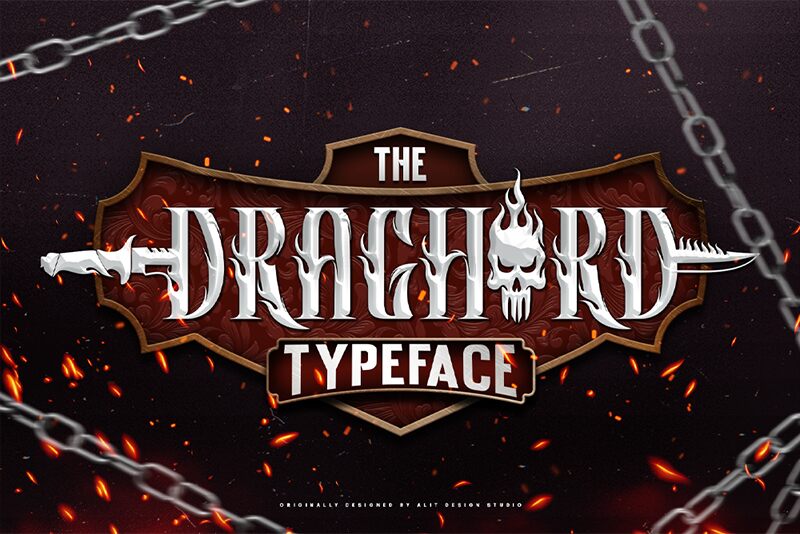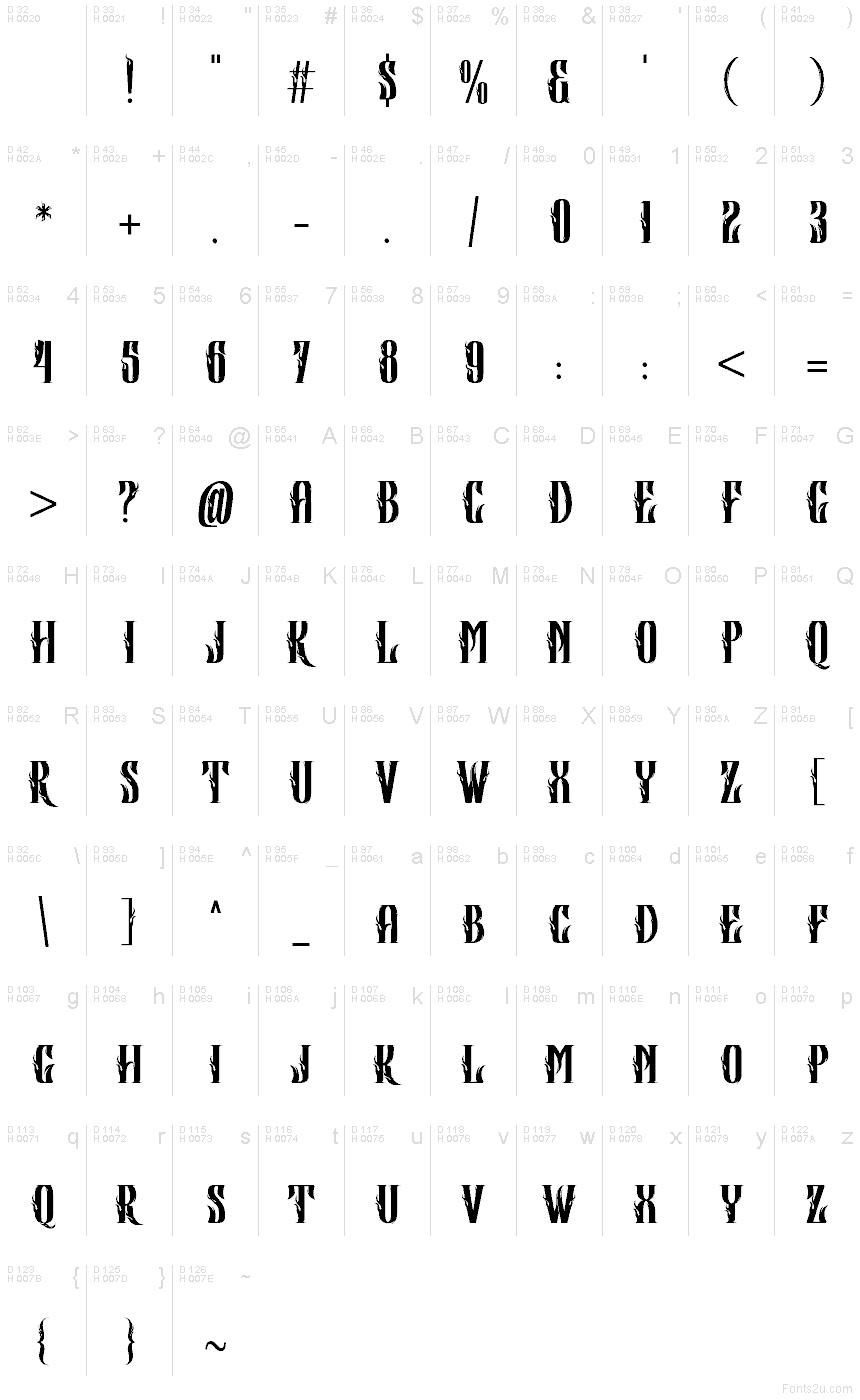
Draghord Regular
Draghord font by Alit Design is a modern, condensed gothic font that combines ornate detailing with a bold, dramatic presence. With decorative elements that evoke a medieval feel and vintage inspiration, this typeface captures the adventurous essence of superheroic power and dynamic energy.